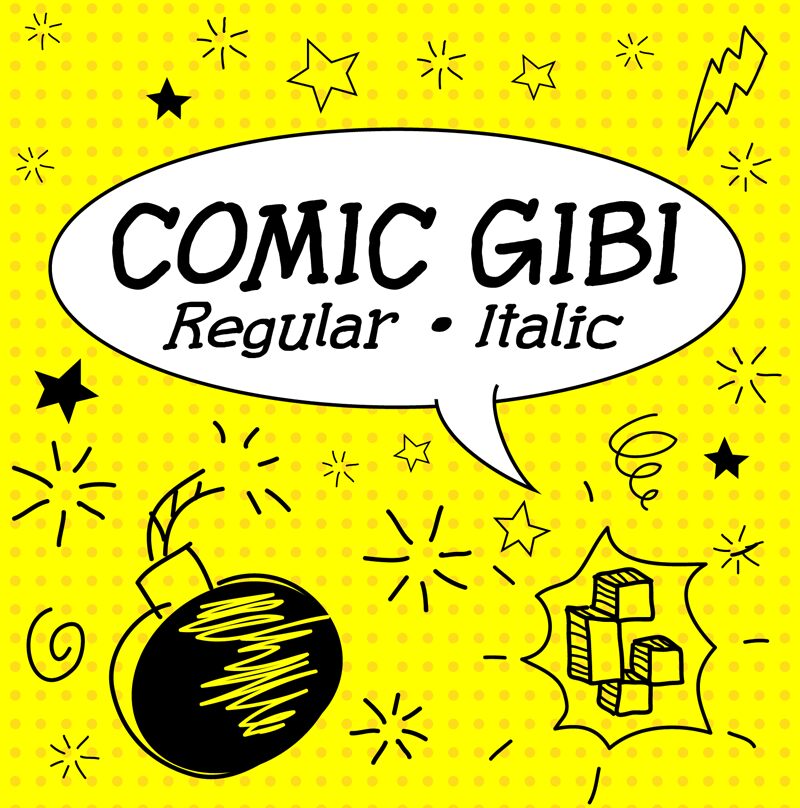
Comic Gibi Italic
Comic Gibi Italic font is a casual display type designed by Galdino Otten Fonts. The handwritten style with its smooth flow gives a warm and friendly atmosphere to readers and gives an edge that elevates designs in which it’s used. A typical comic modern font, Comic Gibi Italic is suitable for book covers, apparel items, and others.
It can also be used for posters, advertising, movie titles, short texts, logos or branding projects. Furthermore, it will look equally lovely on business cards | invitation cards | typographic quotes | greeting cards | printed products | labels & packaging etc keeping its versatility all around.